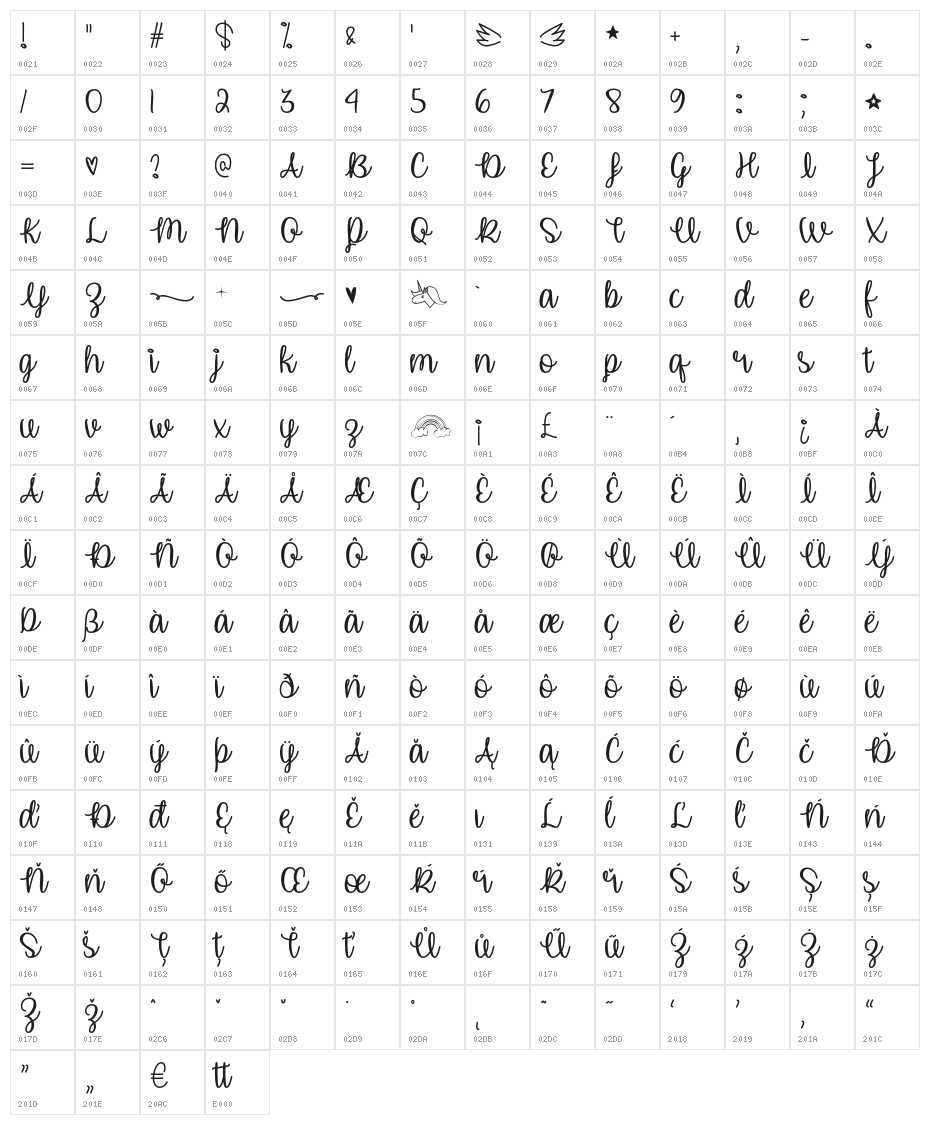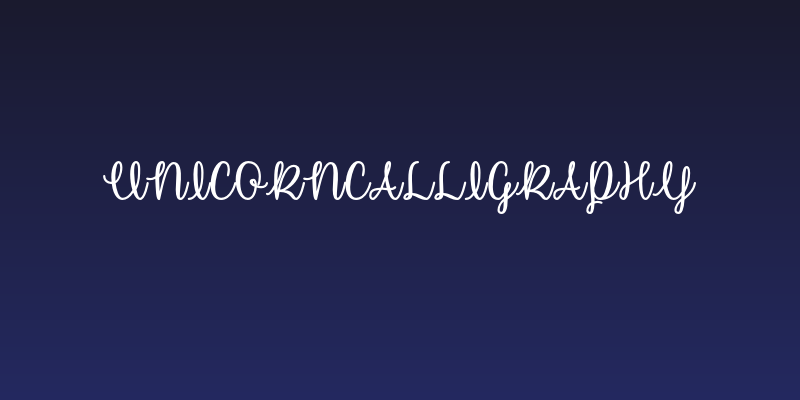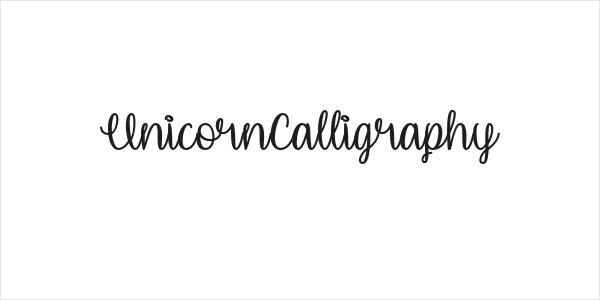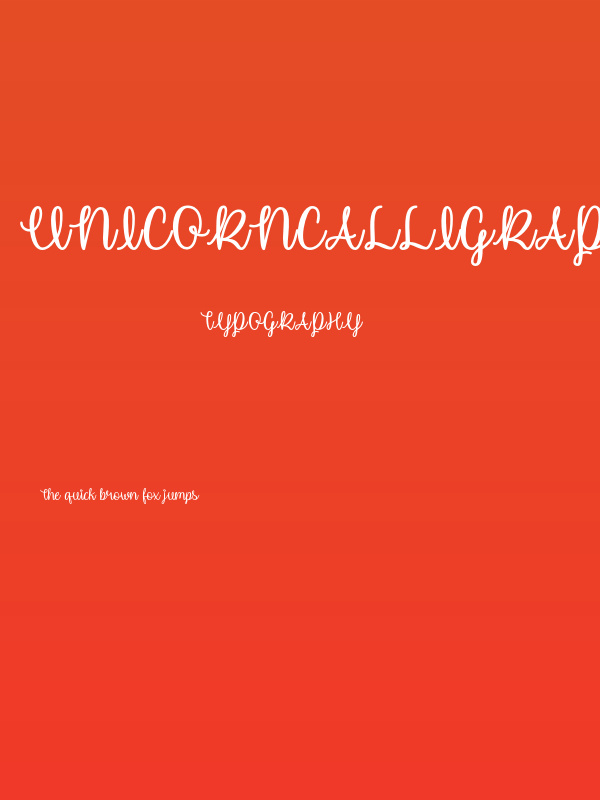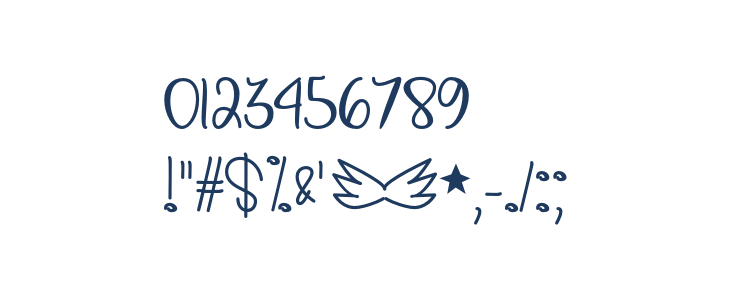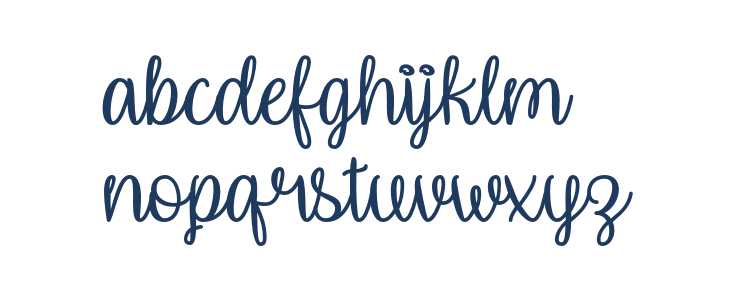
UnicornCalligraphy Font
UnicornCalligraphy Description
This font exudes a whimsical and playful charm with its flowing, cursive style. The letters are crafted with a smooth, continuous stroke, giving it an elegant yet approachable feel. The uppercase letters maintain a consistent height, while the lowercase letters feature delightful loops and curves, adding a touch of fantasy. The numbers are equally playful, with a consistent stroke width that complements the overall design. Special characters include stars and wings, enhancing its magical theme. This font is perfect for projects that require a touch of enchantment and creativity.
| Proposed Projects | Ideal for greeting cards, children's book covers, fantasy-themed branding, and whimsical invitations. |